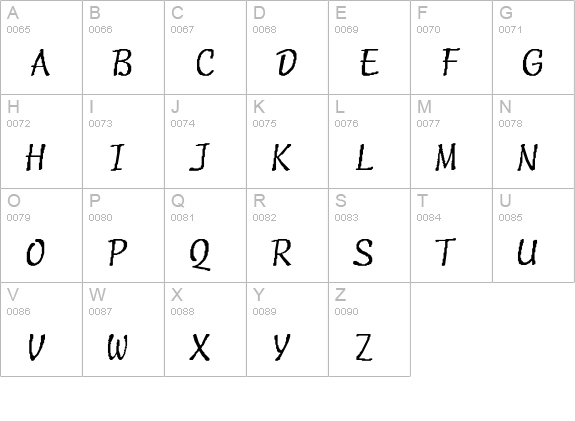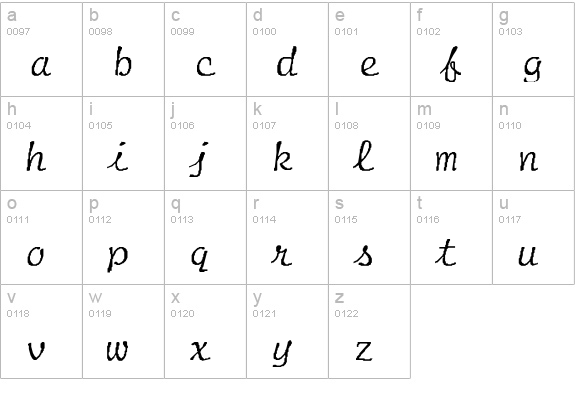
Script-Normal-I is the standard, neutral variant in the Script typeface family \xE2\x80\x94 well suited to general body text, paragraphs, and standard typographic work.
Script-Normal-I is a stunning font that effortlessly blends elegance and sophistication. With its graceful and flowing letterforms, this font adds a touch of timeless beauty to any project. Whether you are designing wedding invitations, creating a logo for a high-end brand, or simply looking to add a touch of class to your personal correspondence, Script-Normal-I is the perfect choice. This font captures the essence of traditional calligraphy, with its delicate strokes and intricate details. The curves and loops of each letter are expertly crafted, creating a sense of harmony and balance. The result is a font that is both visually striking and highly legible. One of the standout features of Script-Normal-I is its versatility. It can be used in a variety of contexts, from formal and elegant to casual and playful. No matter the occasion, this font will bring a touch of sophistication and style to your design. What sets Script-Normal-I apart is its availability as a free download. You can easily access this font at FontsMarket.com, where it is freely available for personal and commercial use. This means that you can add a touch of luxury to your projects without breaking the bank. Script-Normal-I is a font that embodies elegance, beauty, and charm. Its timeless appeal makes it a must-have for any designer or creative professional. So why wait? Download Script-Normal-I today and let your creativity soar.